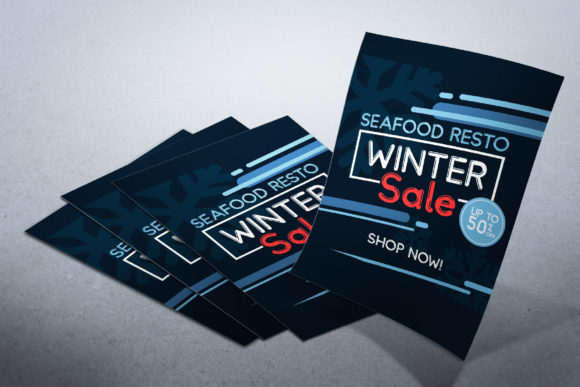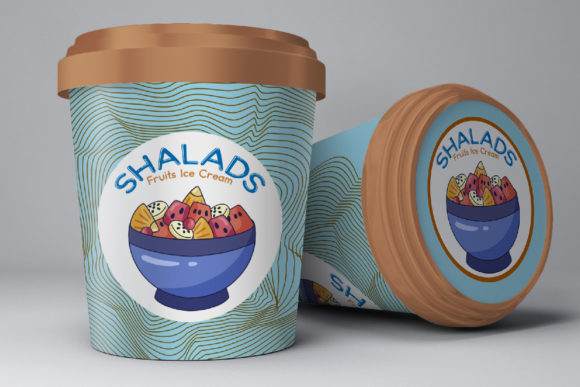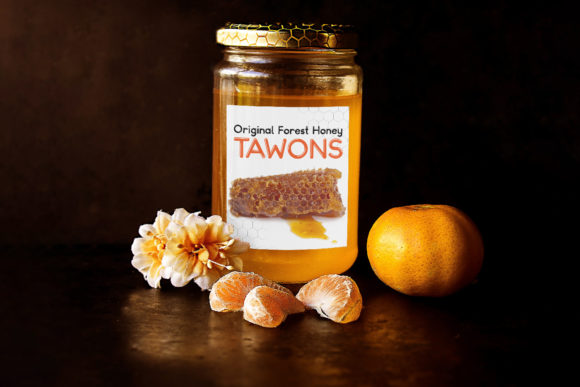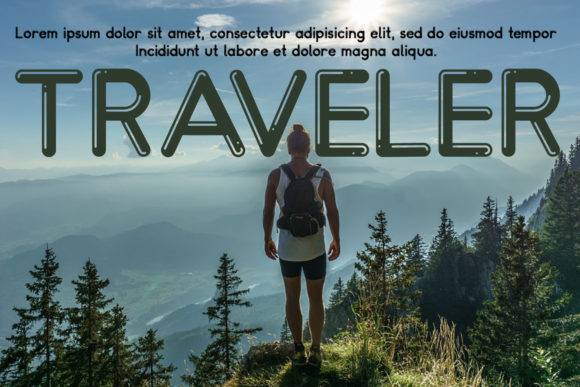
Diving Font: The Sweet and Friendly Sans Serif for Your Creative Projects
Are you on the hunt for a font that exudes style and friendliness? Look no further than Diving Font, a sweet and approachable sans serif font that’s sure to capture your heart. With its incredibly stylish look, Diving Font is perfect for a wide range of creative projects, from logos and quotes to posters, business cards, and PowerPoint presentations.
What Makes Diving Font So Special?
Diving Font is more than just a pretty face – it’s a versatile and highly functional font that’s designed to help you create stunning visual content. Here are just a few of the features that make Diving Font so special:
- Sweet and Friendly Design: Diving Font boasts a unique and charming design that’s both sweet and friendly. Its sans serif style gives it a clean and modern look that’s perfect for a wide range of applications.
- Highly Legible: One of the most important features of any font is legibility, and Diving Font delivers in spades. Its clear and concise design makes it easy to read, even at small sizes.
- Versatile: Whether you’re creating a logo, quote, poster, or business card, Diving Font is the perfect choice. Its flexibility and adaptability make it an excellent addition to any designer’s toolkit.
Uses for Diving Font
So, what can you use Diving Font for? The possibilities are endless! Here are just a few ideas to get you started:
- Logos: Create a stunning logo for your business or brand with Diving Font. Its unique design and high legibility make it perfect for use as a logotype.
- Quotes: Add some style and sophistication to your quotes with Diving Font. Its clean and modern design makes it perfect for use in inspirational quotes, testimonials, and more.
- Posters: Create eye-catching posters with Diving Font. Its bold and stylish design makes it perfect for use in posters, flyers, and brochures.
- Business Cards: Make a great impression with Diving Font on your business cards. Its professional and stylish design makes it perfect for use in business cards, letterheads, and more.
- PowerPoint Presentations: Add some style and sophistication to your PowerPoint presentations with Diving Font. Its clean and modern design makes it perfect for use in presentations, reports, and more.
Why Designers and Crafters Love Diving Font
So, why do designers and crafters love Diving Font? Here are just a few reasons:
- Easy to Use: Diving Font is incredibly easy to use, even for those who are new to design. Its simple and intuitive design makes it easy to get started with, and its high legibility ensures that your designs will look great.
- High-Quality Design: Diving Font is a high-quality font that’s designed to deliver exceptional results. Its unique design and high legibility make it perfect for use in a wide range of applications.
- Flexible: Diving Font is an incredibly flexible font that’s perfect for use in a wide range of applications. Whether you’re creating a logo, quote, poster, or business card, Diving Font is the perfect choice.
In conclusion, Diving Font is a sweet and friendly sans serif font that’s perfect for designers and crafters. Its incredibly stylish look, high legibility, and versatility make it an excellent addition to any designer’s toolkit. Whether you’re creating a logo, quote, poster, business card, or PowerPoint presentation, Diving Font is the perfect choice. So why wait? Fall in love with Diving Font today and start creating stunning visual content that will leave a lasting impression!
- Sweet and friendly sans serif font
- Incredibly stylish look
- Highly legible
- Versatile and flexible
- Perfect for logos, quotes, posters, business cards, PowerPoint presentations, and more!